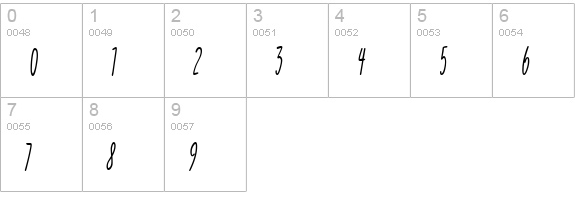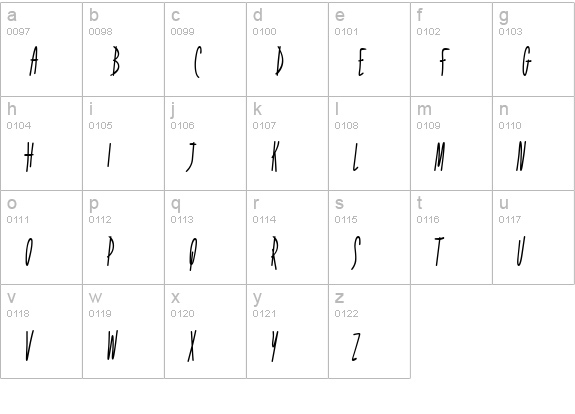
Fidelity Hour BTN Font Details
Fidelity Hour BTN font is a modern and versatile typeface that exudes elegance and sophistication. With its clean lines and balanced proportions, this font is perfect for a wide range of design projects, from branding to editorial to web design. The timeless appeal of Fidelity Hour BTN font makes it a popular choice for designers looking to convey a sense of professionalism and style. The best part? Fidelity Hour BTN font is available for free download at FontsMarket.com. You can easily access this stunning font and elevate your designs with its classic yet contemporary aesthetic. Whether you're working on a logo, poster, or website, Fidelity Hour BTN font will add a touch of refinement and class to your projects. Download it today and take your design to the next level!